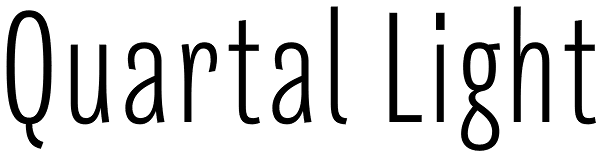
Quartal
Quartal is a family of stylish sans serif typefaces of condensed proportions. The family consists of 5 regular weights, 4 condensed ones and 13 extended styles (7 upright and 6 italic). At first there was intention to release just 4 condensed...